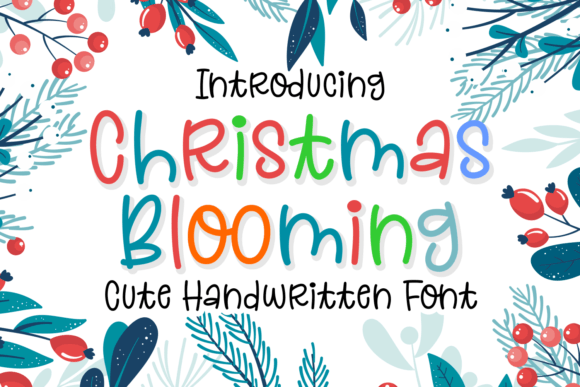
Get into the Holiday Spirit with the Christmas Blooming Font
As the holiday season approaches, designers are always on the lookout for that special something to make their Christmas projects stand out. For many, it’s the perfect font that sets the tone for a cheerful and festive atmosphere. I still remember the moment I stumbled upon the Christmas Blooming Font, and I knew I had to share it with the world.
This brilliant, handwritten display font is a perfect fit for Christmas-themed designs, especially when combined with bright colors. Its playful and whimsical style makes it an ideal choice for children’s themed designs, from greeting cards to party invitations. The Christmas Blooming Font is a valuable addition to any designer’s toolkit, offering endless possibilities for creative expression.
Key Features of Christmas Blooming Font
- Size: The font contains 400 characters, including uppercase and lowercase letters, numbers, and special characters.
- Unique Characteristics: The font features a unique, hand-drawn design with intricate details and ornaments, perfect for adding a festive touch to holiday designs.
- Support: The font supports Latin and Cyrillic scripts, making it suitable for use in a variety of languages.
Review: Christmas Blooming Font
Overall, I’d say the Christmas Blooming Font is a mixed bag. Let’s start with the good stuff:
- ✨ The font is incredibly festive and captures the essence of the holiday season. It’s perfect for any Christmas-themed project or design.
- ✨ The font is highly customizable, with a range of sizes, colors, and styles to choose from. This makes it a great choice for designers who want to add a personal touch to their work.
- ✨ The font is also highly legible, even at smaller sizes, which is a big plus for designers who need to ensure their text is readable across various platforms.
Now, let’s talk about the limitations:
- ⚠️ The font can feel a bit overwhelming if used in large quantities. This can make it difficult to read and may detract from the overall design.
- ⚠️ The font may not be suitable for all audiences, particularly those who prefer a more subtle or minimalist design aesthetic.
Overall, I’d say the Christmas Blooming Font is a great choice for designers who want to add a festive touch to their work. While it has its limitations, the font is highly customizable and legible, making it a great option for a wide range of design projects.
Getting the Most Out of the Christmas Blooming Font
Experiment with different font sizes, colors, and styles to create a unique and festive design. Use the font in combination with other decorative elements, such as holly, snowflakes, or Christmas trees, to create a cohesive look. Don’t be afraid to try out different layer blending modes and opacity levels to add depth and interest to your design.
The Christmas Blooming Font is perfect for creating festive holiday designs, such as:
- Christmas cards and invitations
- Holiday party decorations and signage
- Christmas gift tags and wrapping paper
- Festive social media posts and graphics
What is the recommended font size for using the Christmas Blooming Font?
The recommended font size for using the Christmas Blooming Font is between 12pt and 24pt. This range provides the best balance between readability and aesthetics. However, you can experiment with different font sizes to achieve the desired effect in your design project.